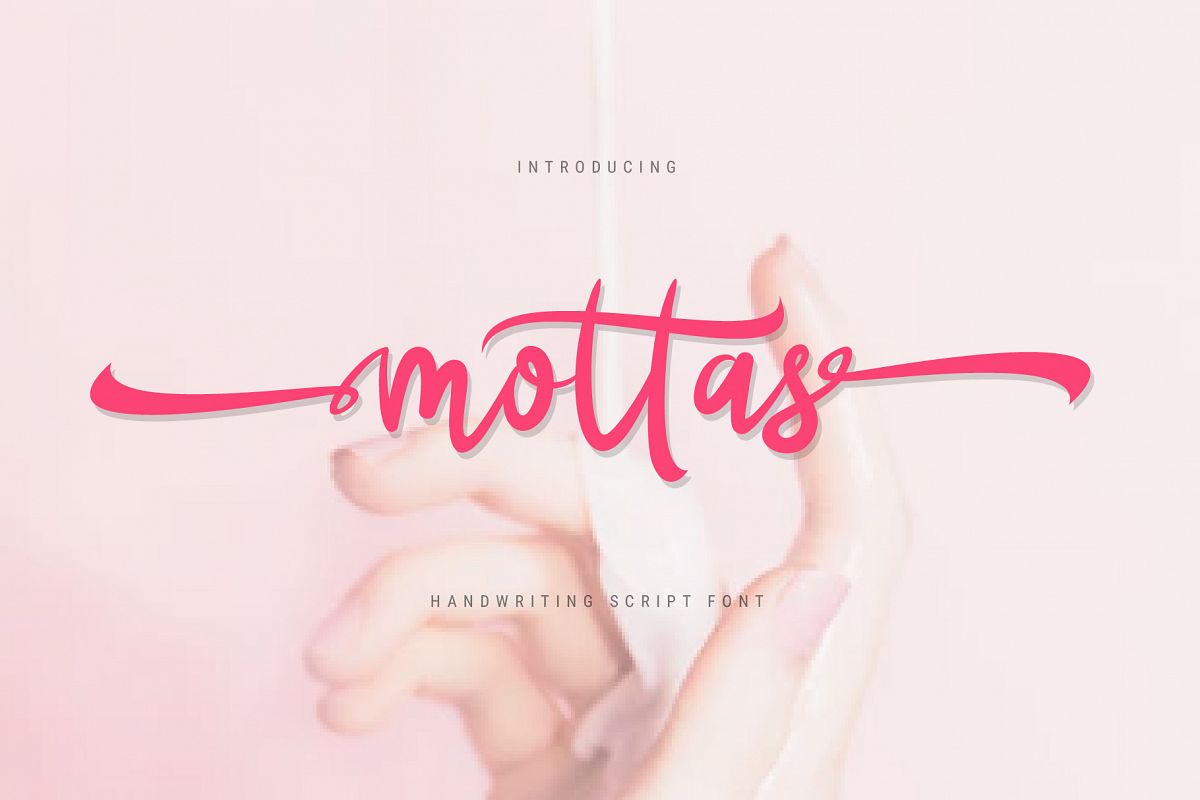
Mottas | New Handwritten
Mottas
Mottas Script
Mottas Script a new fresh & modern script with a handmade calligraphy style, decorative characters and a dancing baseline! So beautiful on invitation like greeting cards, branding materials, business cards, quotes, posters, and more!!